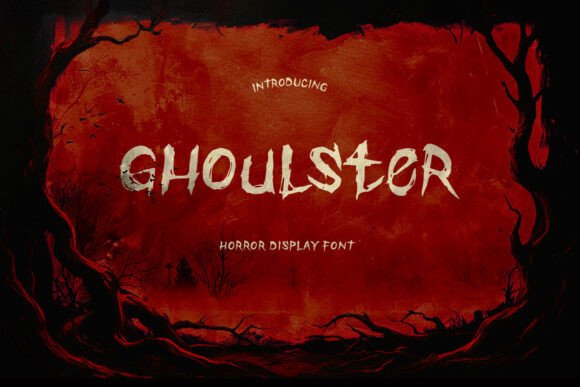
Ghoulster Font: The Ultimate Horror Display Font for Your Graphic Design Projects
If you’re a fan of the horror genre, you’re probably always on the lookout for ways to add a touch of spooky elegance to your graphic design projects. Whether you’re creating a logo, poster, or any other visual element, the right font can make all the difference. That’s where the Ghoulster font comes in – a horror font display that’s perfect for adding a mysterious and scary touch to your projects.
What is Ghoulster Font?
Ghoulster is a carefully crafted horror font display that’s designed to evoke the eerie and mysterious atmosphere of the horror genre. With its unique and intricate design, Ghoulster is perfect for anyone who wants to add a touch of spookiness to their graphic design projects.
The font features a range of characters, including letters, numbers, and punctuation marks, all designed to create a sense of unease and uncertainty. Whether you’re creating a horror-themed logo, poster, or social media graphic, Ghoulster is the perfect choice.
- Adds a touch of mystery and elegance: Ghoulster font adds a level of sophistication and elegance to your projects, while also evoking the mysterious and eerie atmosphere of the horror genre.
- Perfect for horror-themed projects: Whether you’re creating a horror movie poster, a spooky logo, or a haunted house advertisement, Ghoulster font is the perfect choice.
- Versatile: Ghoulster font can be used for a range of graphic design projects, from logos and posters to social media graphics and more.
- Use it sparingly: Ghoulster font is a bold and eye-catching font, so use it sparingly to avoid overwhelming your design.
- Pair it with other fonts: Ghoulster font pairs well with other fonts, such as sans-serif fonts, to create a striking contrast.
- Experiment with colors: Ghoulster font looks great in a range of colors, from bold and bright to dark and muted.
- Play with textures: Adding textures to your design can help to enhance the eerie and mysterious atmosphere of Ghoulster font.
- Font type: Horror font display
- Characters: Letters, numbers, and punctuation marks
Ghoulster font is a horror font display that’s perfect for adding a touch of spooky elegance to your graphic design projects. With its unique and intricate design, Ghoulster is ideal for horror genre lovers and designers who want to create eye-catching and eerie designs.